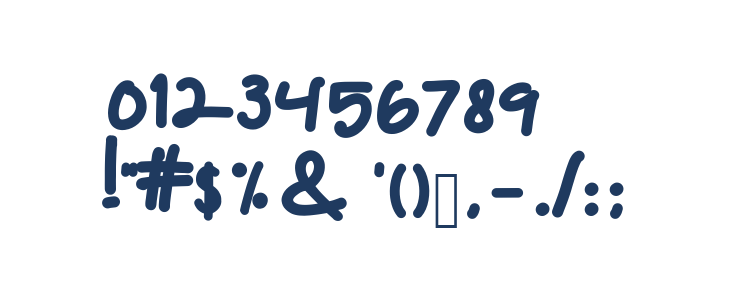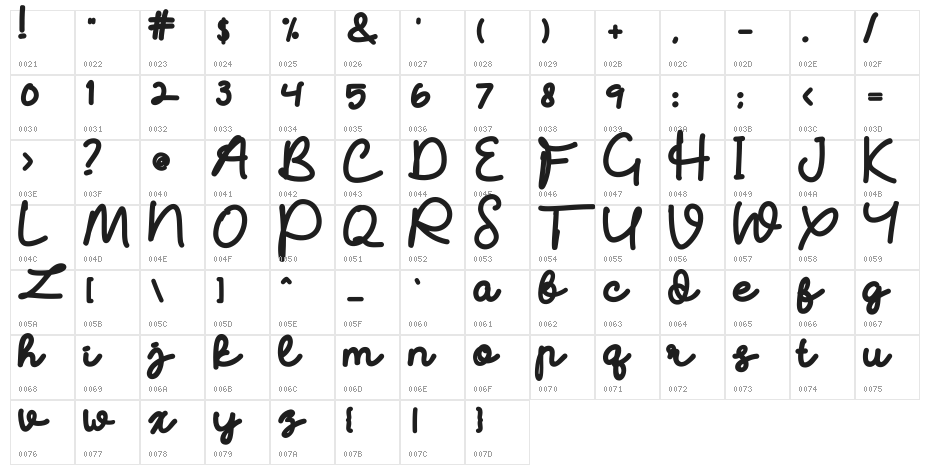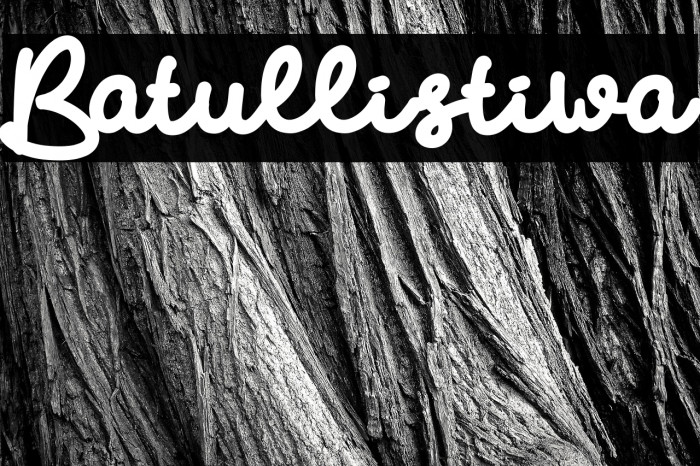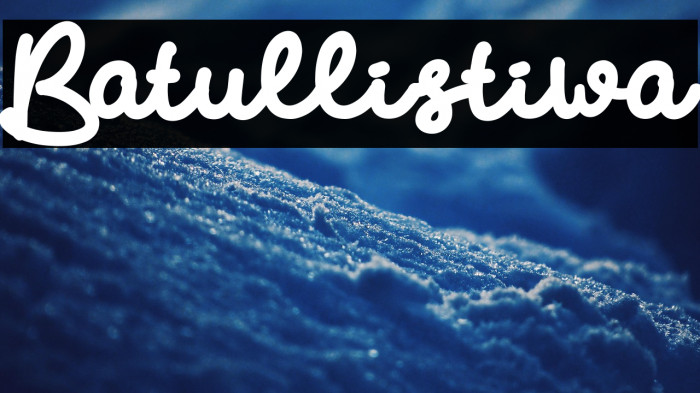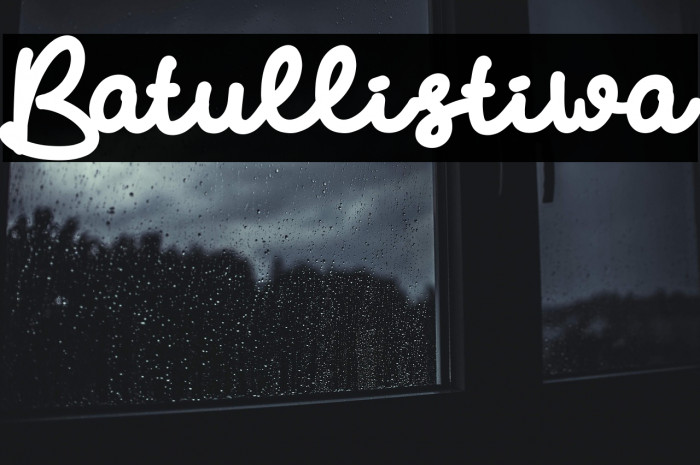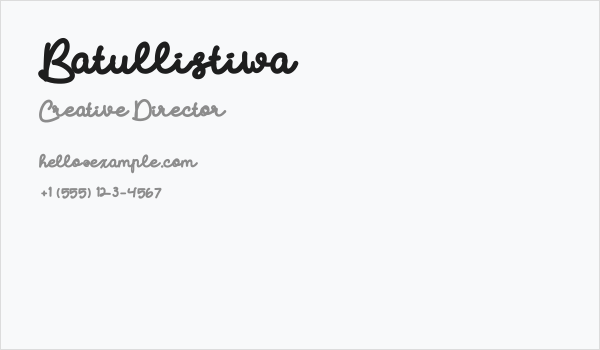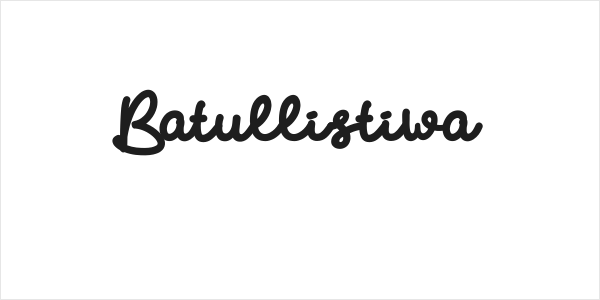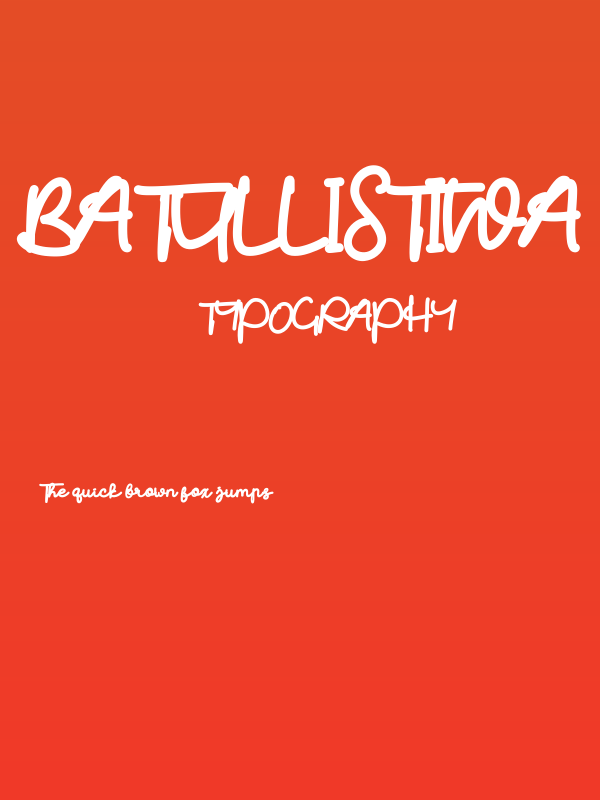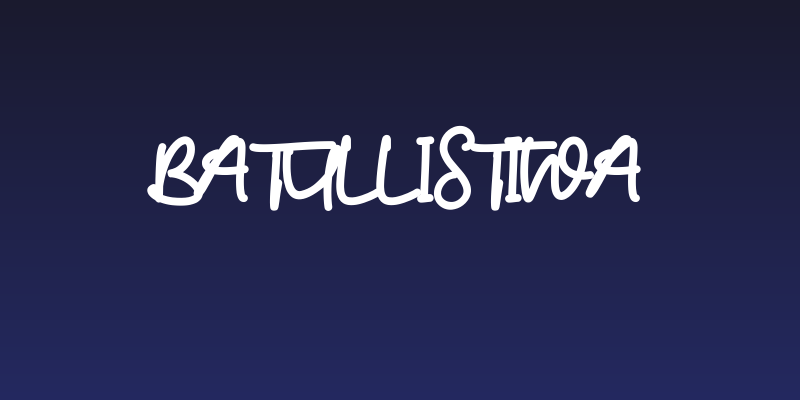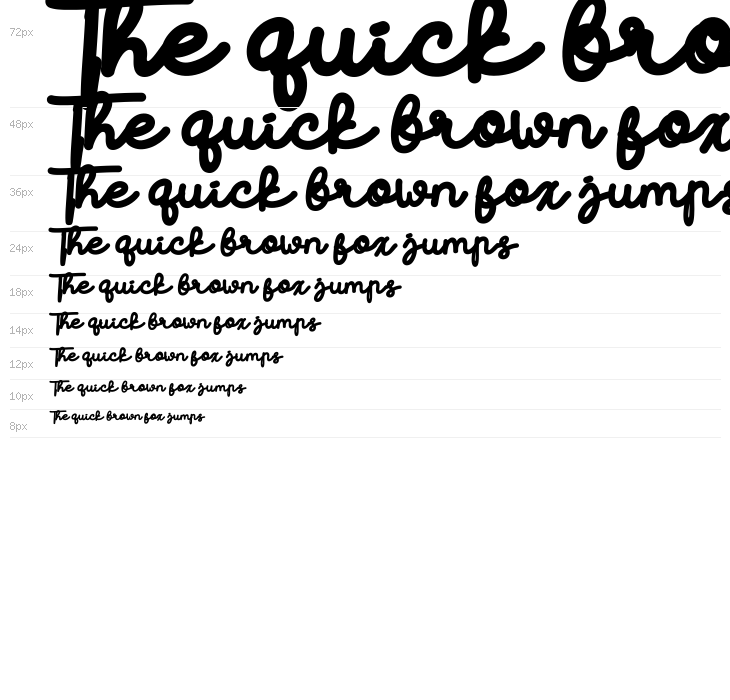
Batullistiwa Font
Batullistiwa Description
This font features a playful and energetic script style with a handwritten appearance. The characters are bold and rounded, giving a friendly and approachable feel. The uppercase and lowercase letters flow seamlessly, maintaining a consistent rhythm and balance. Numbers and special characters are designed with the same lively aesthetic, ensuring uniformity across all elements. The strokes are thick, providing a strong visual impact, while the curves and loops add a touch of whimsy. This font is ideal for projects that require a personal, informal touch, such as greeting cards, invitations, or playful branding.
| Overall Style | Playful, Energetic |
| Proposed Projects | Greeting cards, invitations, playful branding, children's books, casual posters. |